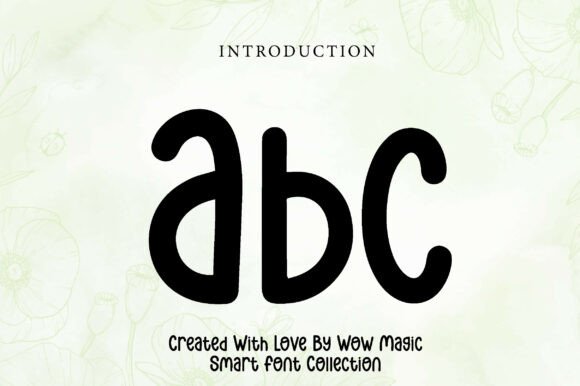
Introduction to Cowboy Humble Font
Cowboy Humble is a charming handwritten display font that blends playful personality with a soft western-inspired touch.
With its rounded strokes, casual letterforms, and friendly appearance, this font creates a warm and approachable look that feels both fun and unique Its relaxed and slightly rustic style makes Cowboy Humble perfect for projects that need a cheerful yet natural vibe.
Key Features of Cowboy Humble Font